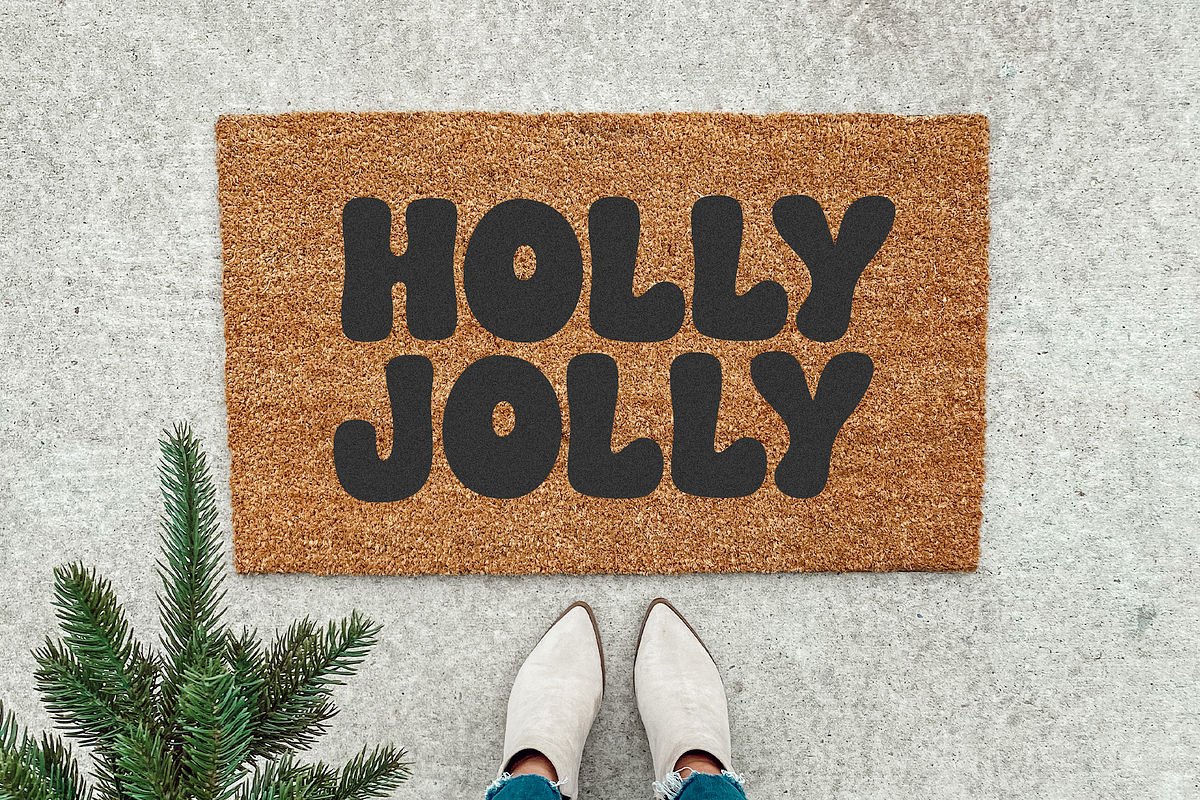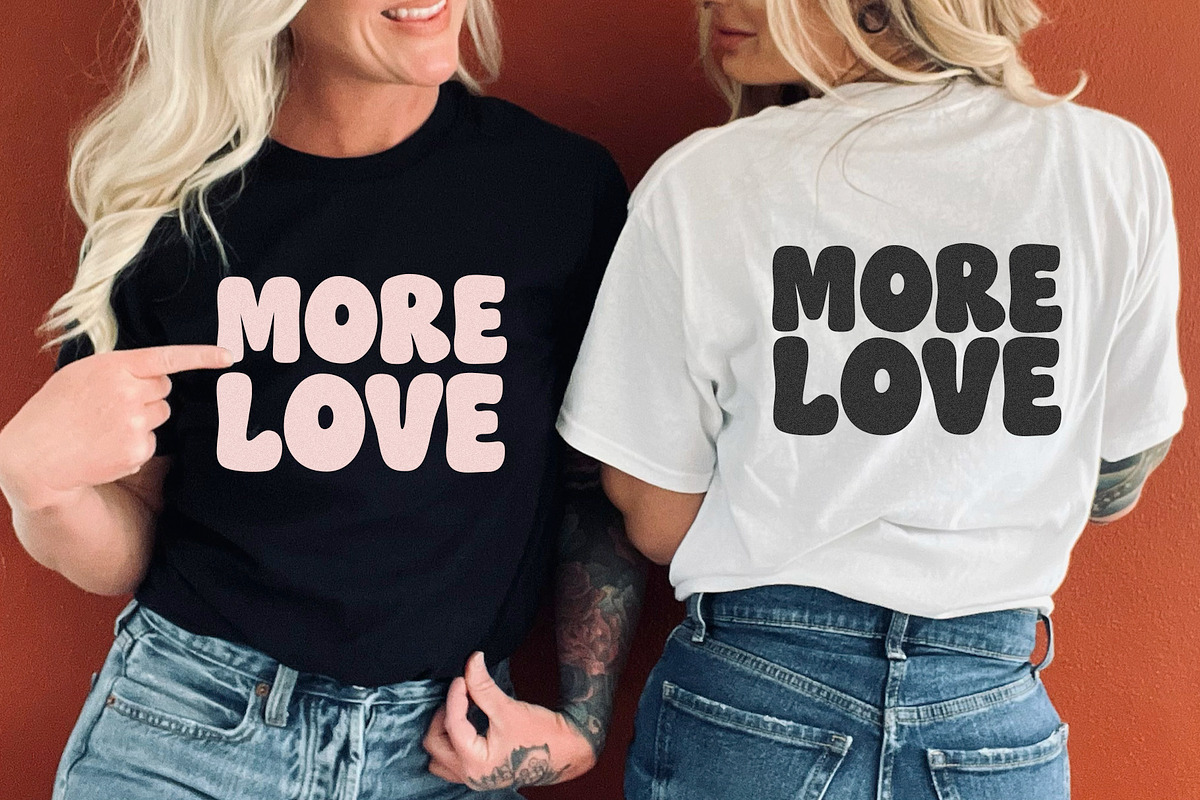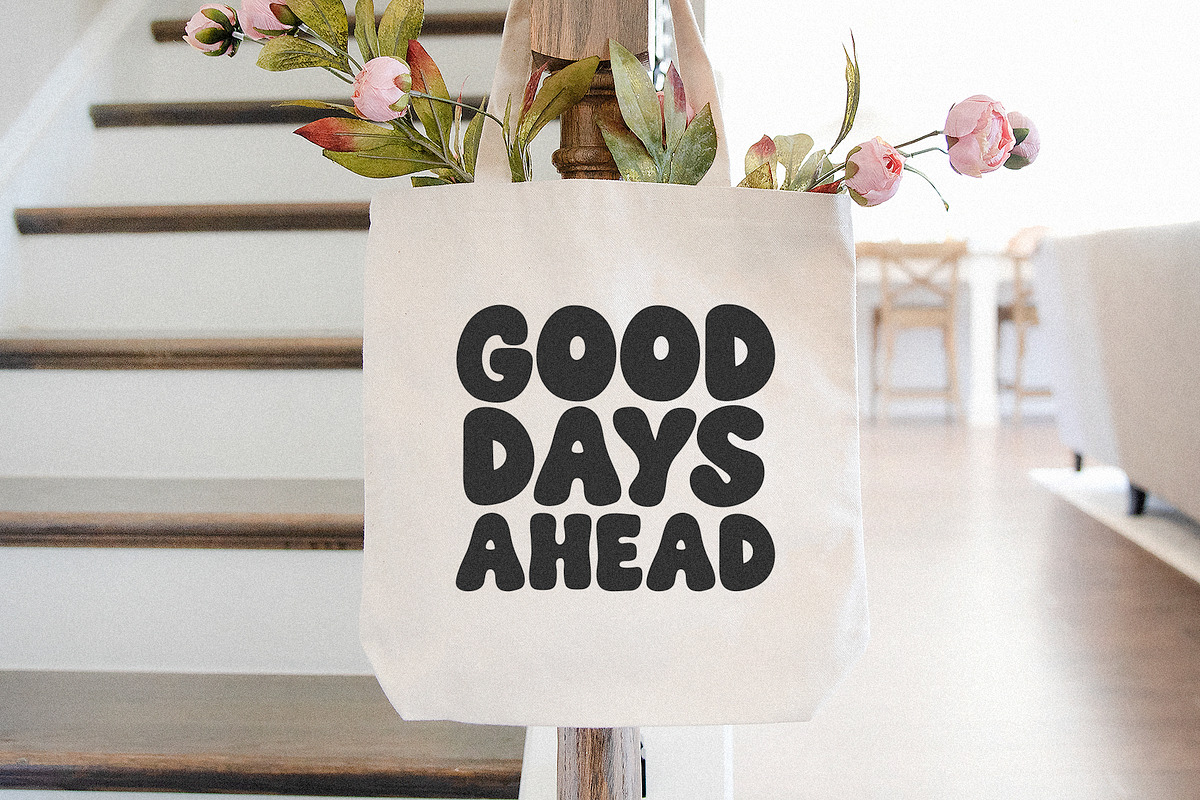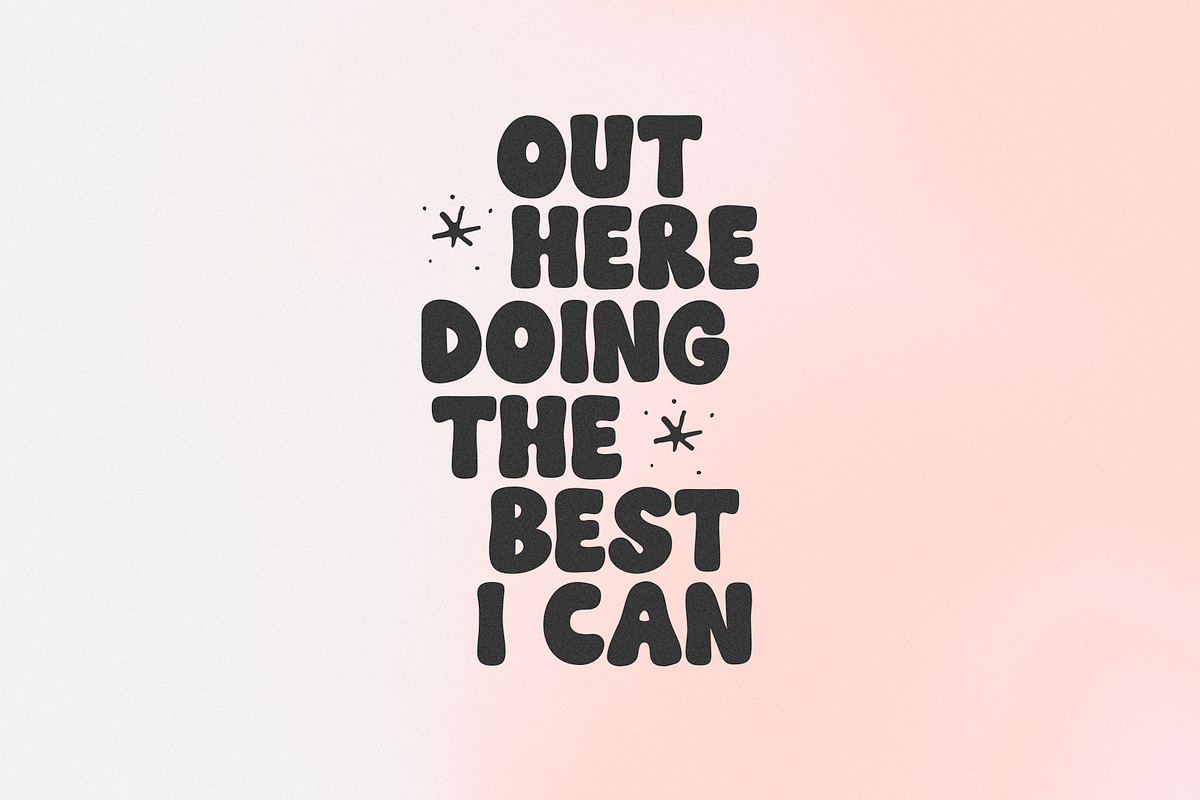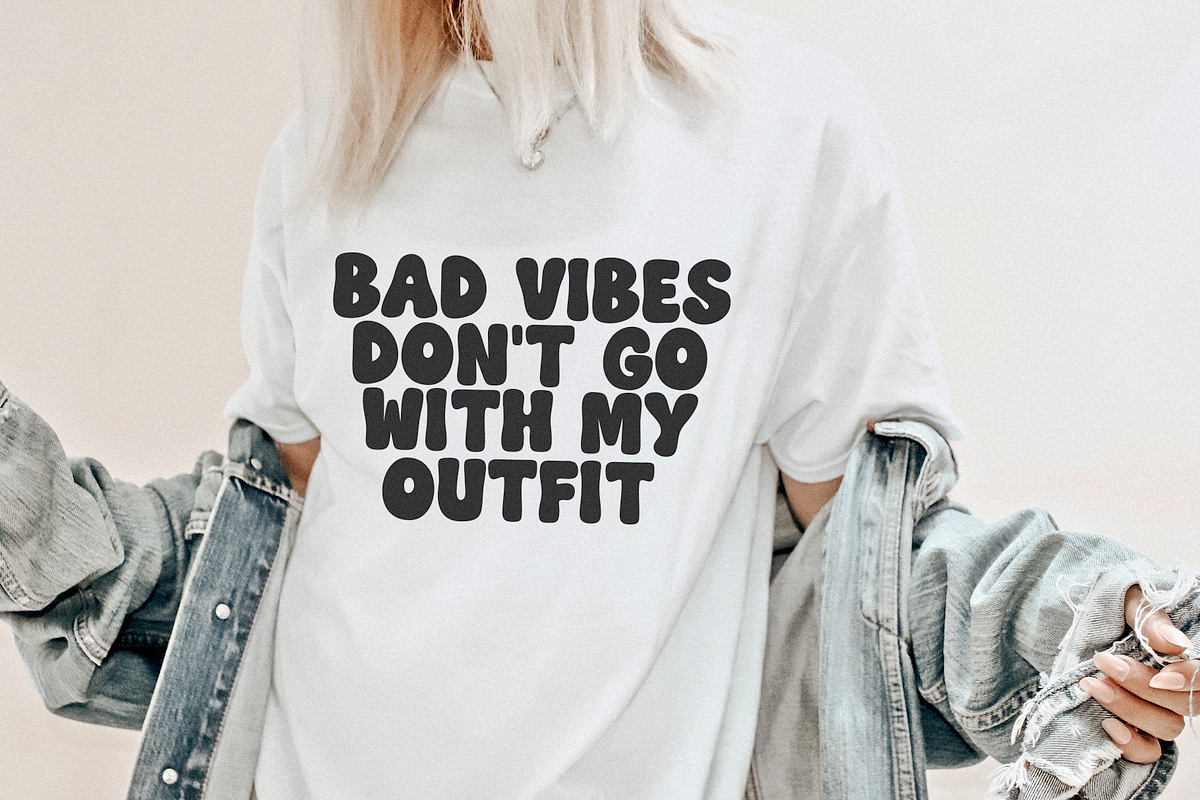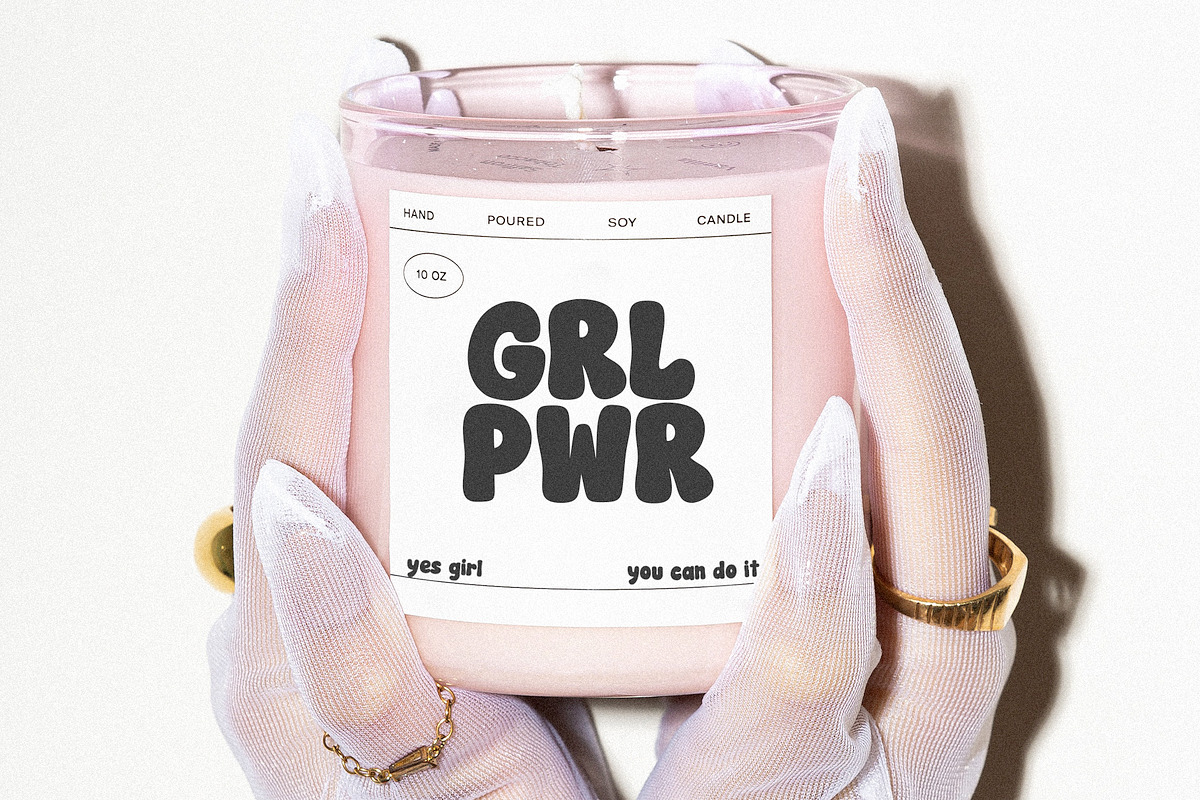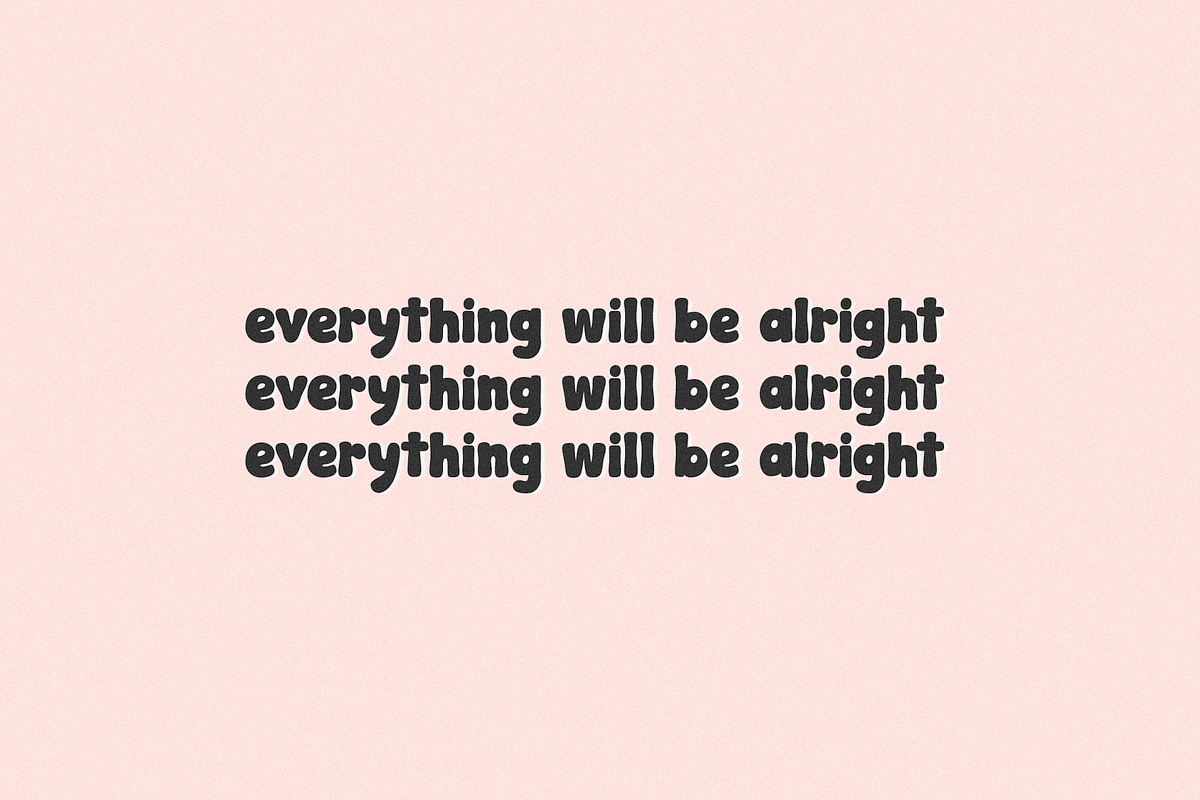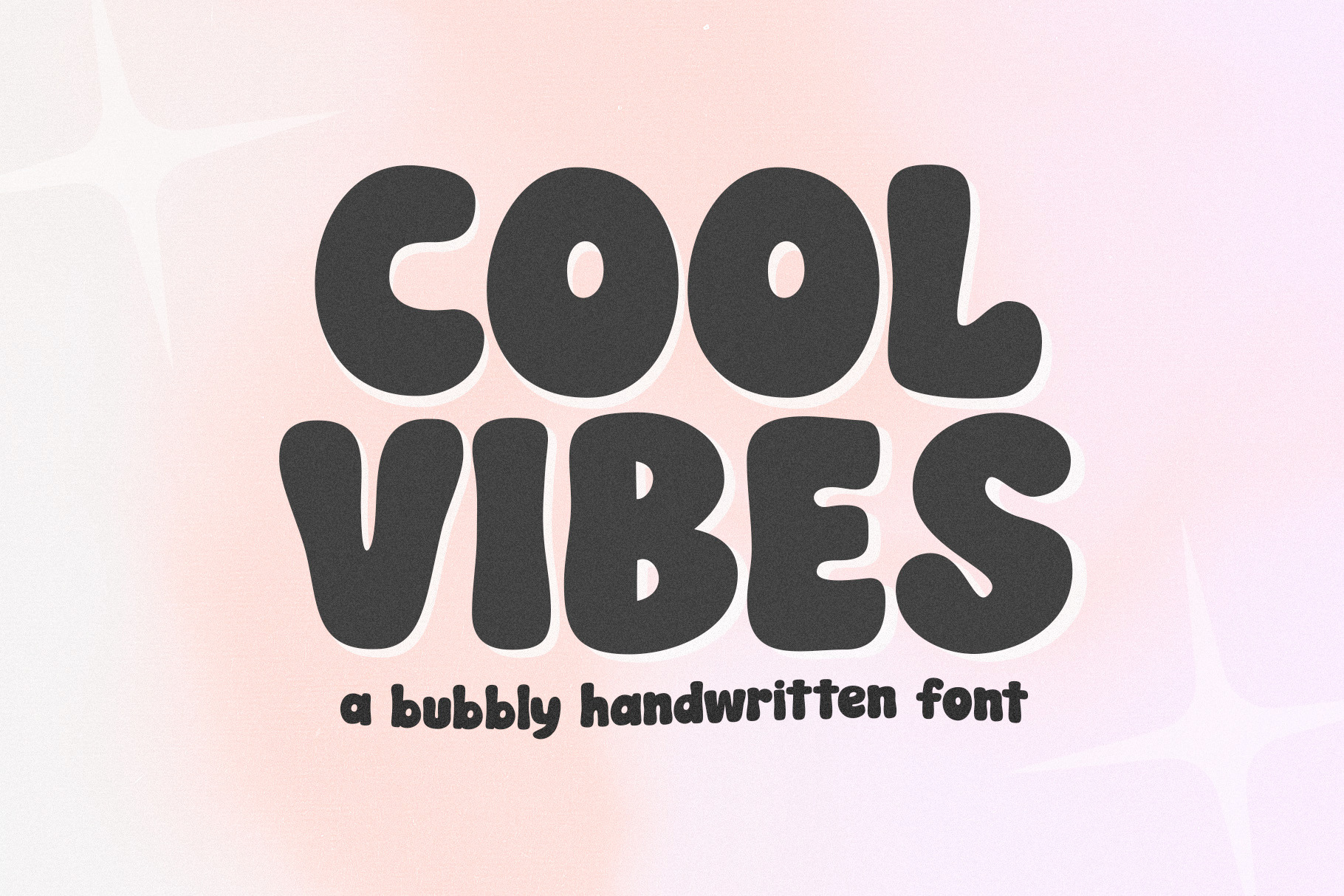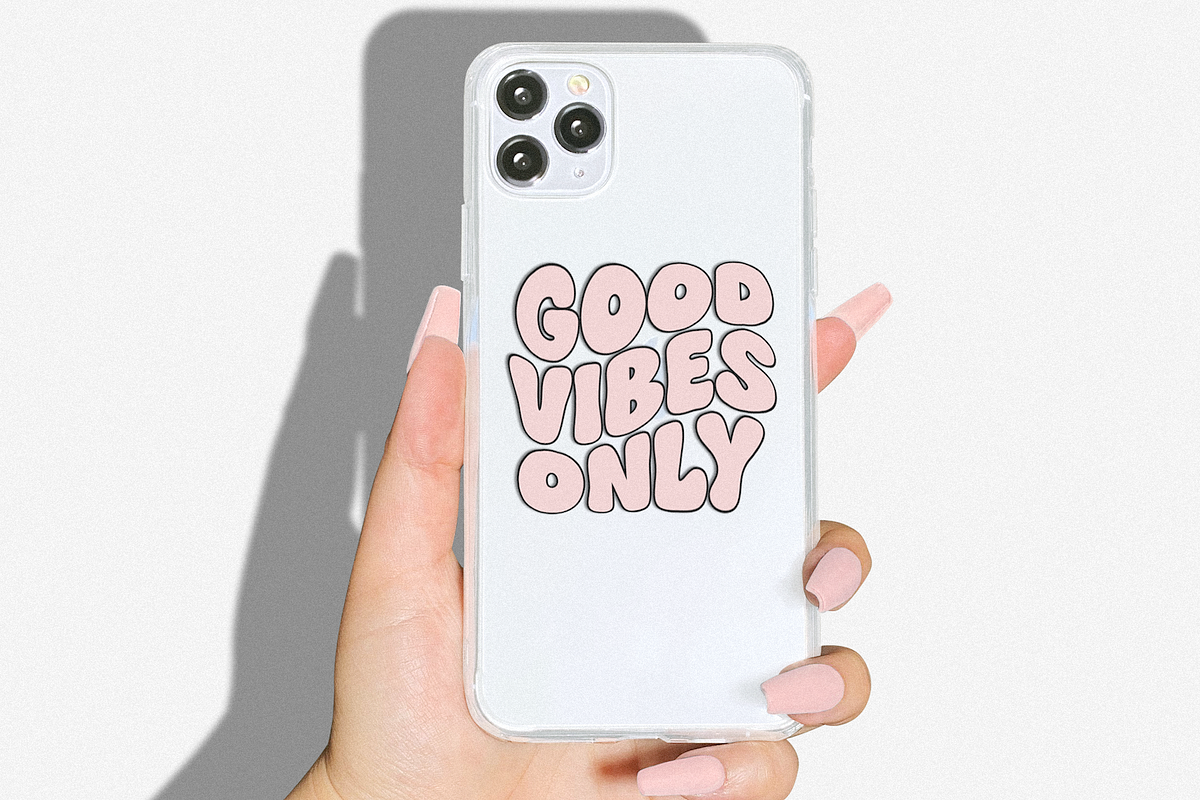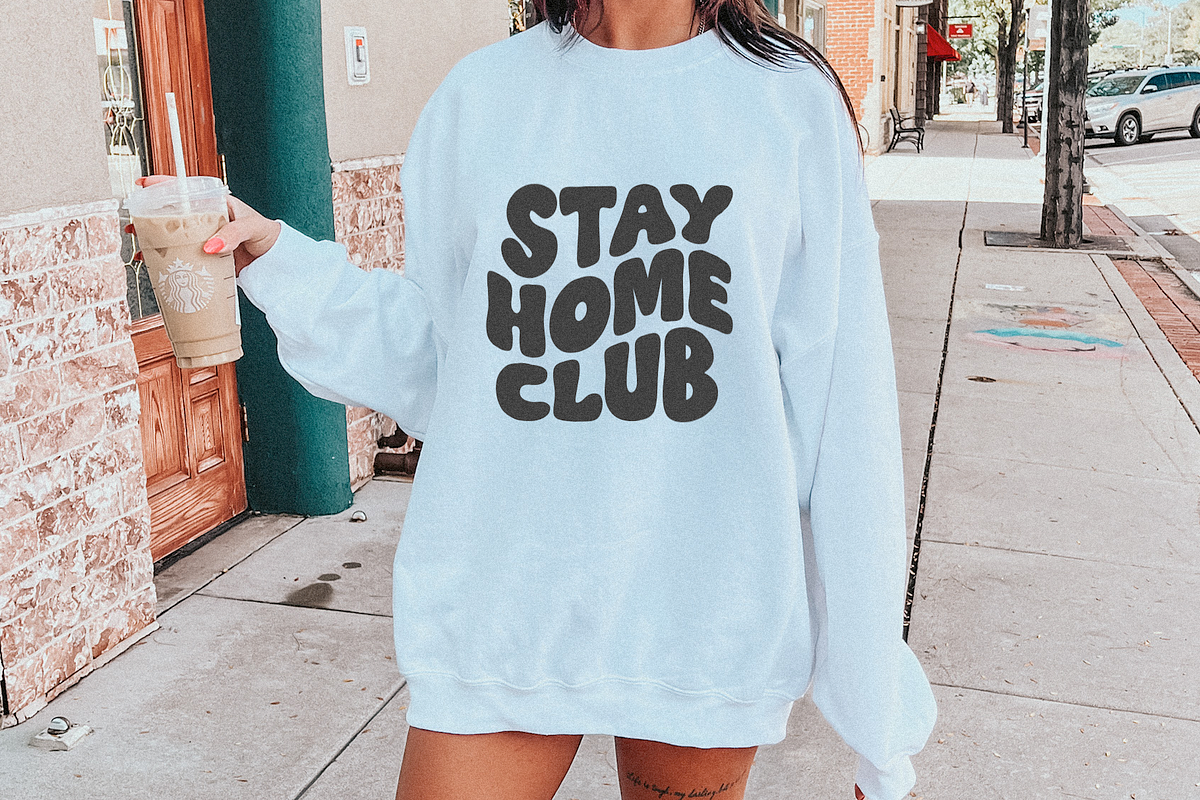
Cool Vibes | Bubbly Retro Font
Cool Vibes is a hand-drawn font with bubbly letters!
This font is perfect for creating retro shirt designs, stickers, svg designs, phone cases, doormats, instagram quotes, branding, logos and more!